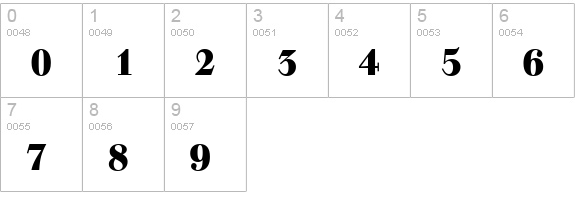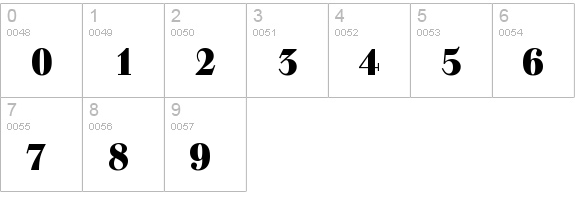
Walbaum-Original-Bold is a strong, high-contrast variant in the Walbaum typeface family \xE2\x80\x94 well suited to headlines, attention-grabbing titles, and strong calls-to-action.
Walbaum-Original-Bold is a striking and versatile typeface that exudes elegance and sophistication. With its bold weight and classic design, this font is perfect for making a bold statement in your designs. The strong, clean lines and distinctive serifs give it a timeless appeal that is sure to captivate your audience. What makes Walbaum-Original-Bold even more appealing is that it is available for free download at FontsMarket.com. This means you can easily access and use this high-quality font for all your personal and commercial projects without any cost. Whether you're designing posters, logos, headlines, or any other creative project, Walbaum-Original-Bold is a fantastic choice that will elevate your work to the next level. Download it today and add a touch of sophistication to your designs!